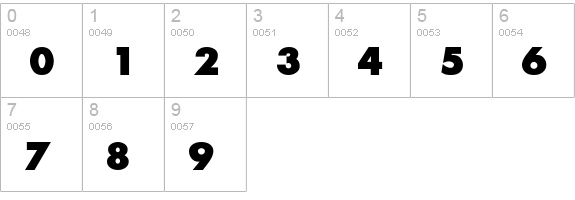
RSFutura Font Details
RSFutura is a modern and versatile font that exudes sophistication and elegance. With its clean lines and sleek design, RSFutura is perfect for a wide range of design projects, from branding to editorial layouts. This font strikes the perfect balance between professionalism and creativity, making it a go-to choice for designers looking to make a statement. One of the best things about RSFutura is that it is completely free to download. You can easily access this stylish font at FontsMarket.com, where you can enhance your projects with its timeless appeal. Whether you're working on a logo, poster, website, or any other design endeavor, RSFutura is sure to elevate your work with its modern charm and versatility. Don't miss out on the opportunity to add RSFutura to your font collection today. Download it for free at FontsMarket.com and unlock the endless possibilities of this sleek and stylish typeface.